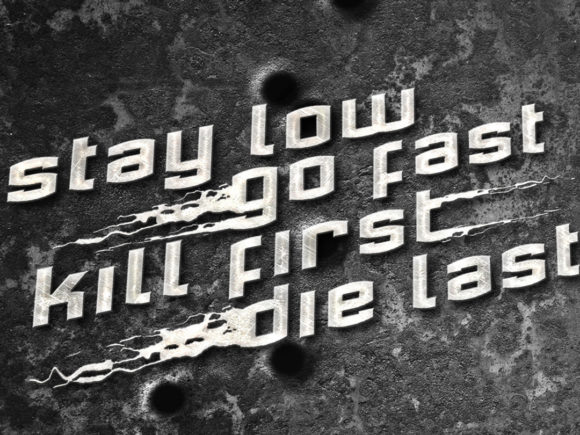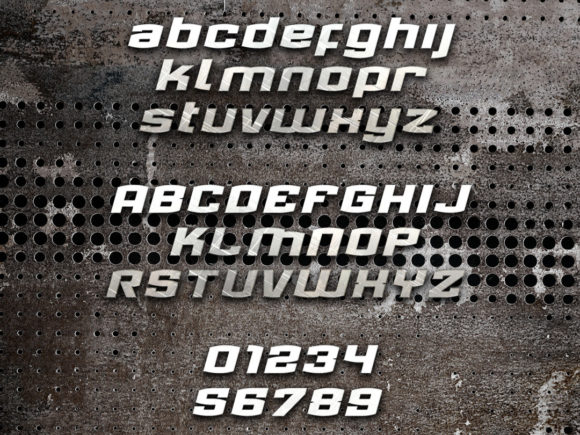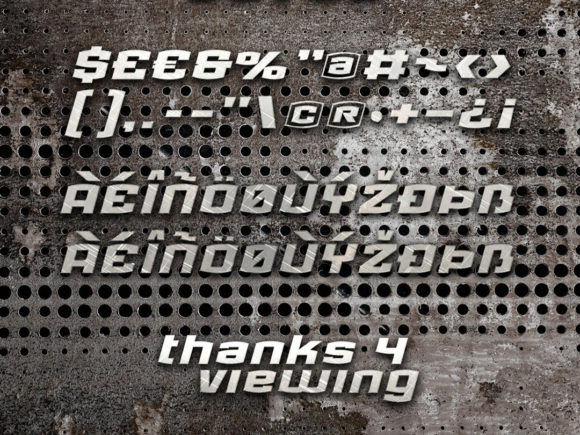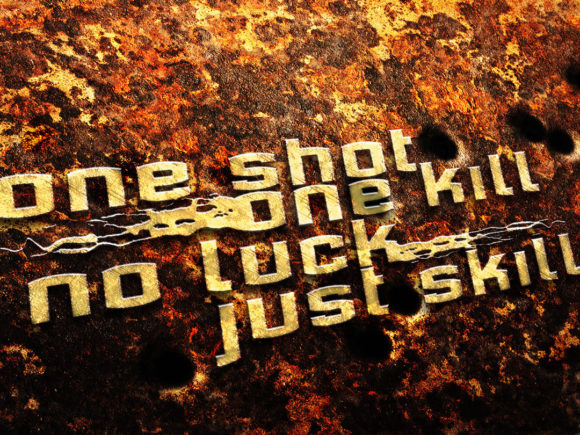
Unlock Your Creative Potential with the Insurgence Font
Have you ever been working on a design project, and suddenly, you need that one font to bring it all together? The moment when you find the perfect font is exhilarating – it’s like the whole design falls into place. For many designers, that moment is exactly what they’re looking for with the Insurgence Font.
This cool, bold, and robotic display font is designed to be a versatile asset in any font library. Whether you’re working on a futuristic sci-fi project, a sleek tech website, or a bold graphic novel, the Insurgence Font has the potential to elevate your creation to the next level.
As a valuable addition to your design toolkit, the Insurgence Font offers endless possibilities for creative expression. Its bold and modern aesthetic makes it an excellent choice for designers who want to make a statement and push the boundaries of their designs.
Insurgence Font Key Features
- Font Family: Insurgence is a modern sans-serif font, suitable for various digital applications.
- Unique Characteristics: Features a unique blend of geometric and organic elements, resulting in a distinctive and modern aesthetic.
Review: Insurgence Font
Overall, I think Insurgence Font is a solid choice for designers looking for a bold and edgy sans-serif font. Here are some of its strengths: ✨
- Unique and striking appearance that grabs attention.
- Works well for headings and titles, adding a touch of sophistication.
- Has a strong, modern feel that’s perfect for tech, gaming, and other high-energy brands.
- May be difficult to read in small sizes or at a distance, due to its bold and condensed nature.
- Lack of versatility, as it may not be suitable for all types of content or branding.
- May not be the best choice for traditional or conservative brands, due to its edgy feel.
Overall, I’d say Insurgence Font is a great option for designers who want to add a bold, modern touch to their projects. While it may have some limitations, its unique appearance and strong feel make it a compelling choice for the right brands and projects.
Alternatives to Insurgence Font
Montserrat is a sans-serif font designed for digital use. It is ideal for headings, titles, and body text in modern designs. Montserrat is more geometric and clean compared to Insurgence Font, which has a more stylized and distressed look.
2. Arial Rounded
Arial Rounded is a sans-serif font with rounded edges, making it a great alternative for designs that require a softer, more approachable look. It is suitable for body text, headings, and titles in a variety of designs, from modern to vintage. Arial Rounded is more rounded and smooth compared to Insurgence Font, which has a more aggressive and distressed look.
Great Vibes is a script font designed for titles, headings, and body text. It is ideal for designs that require a more elegant and sophisticated look. Great Vibes is more elegant and refined compared to Insurgence Font, which has a more rough and distressed look.
Open Sans is a sans-serif font designed for digital use. It is ideal for body text, headings, and titles in modern designs. Open Sans is more minimalist and clean compared to Insurgence Font, which has a more stylized and distressed look.